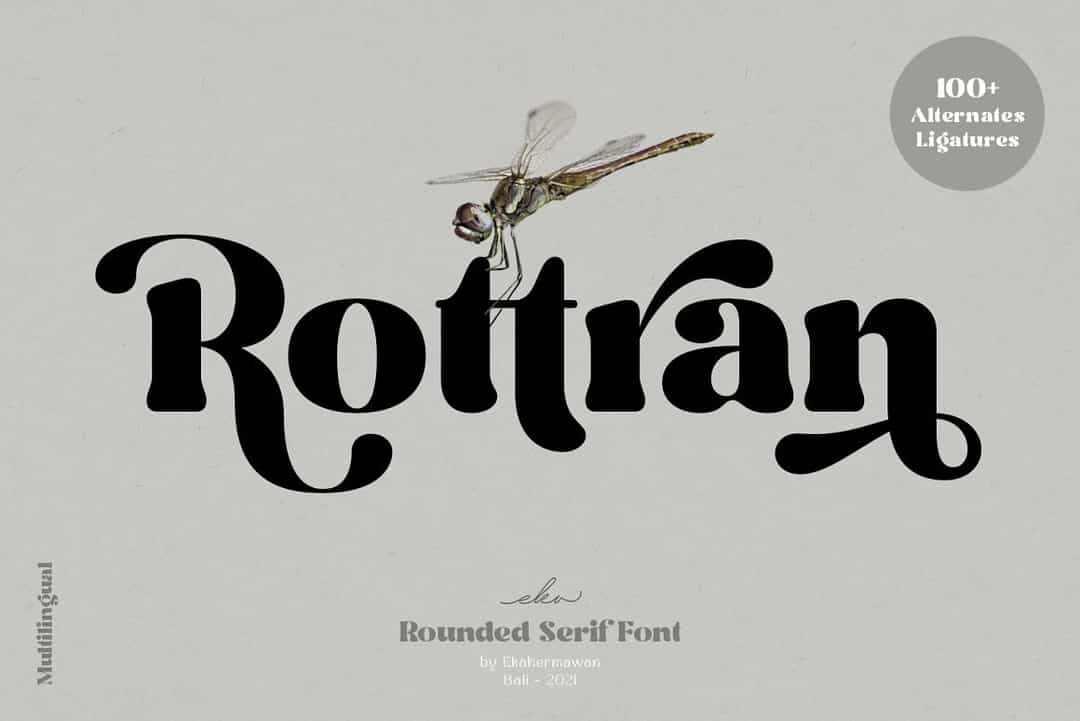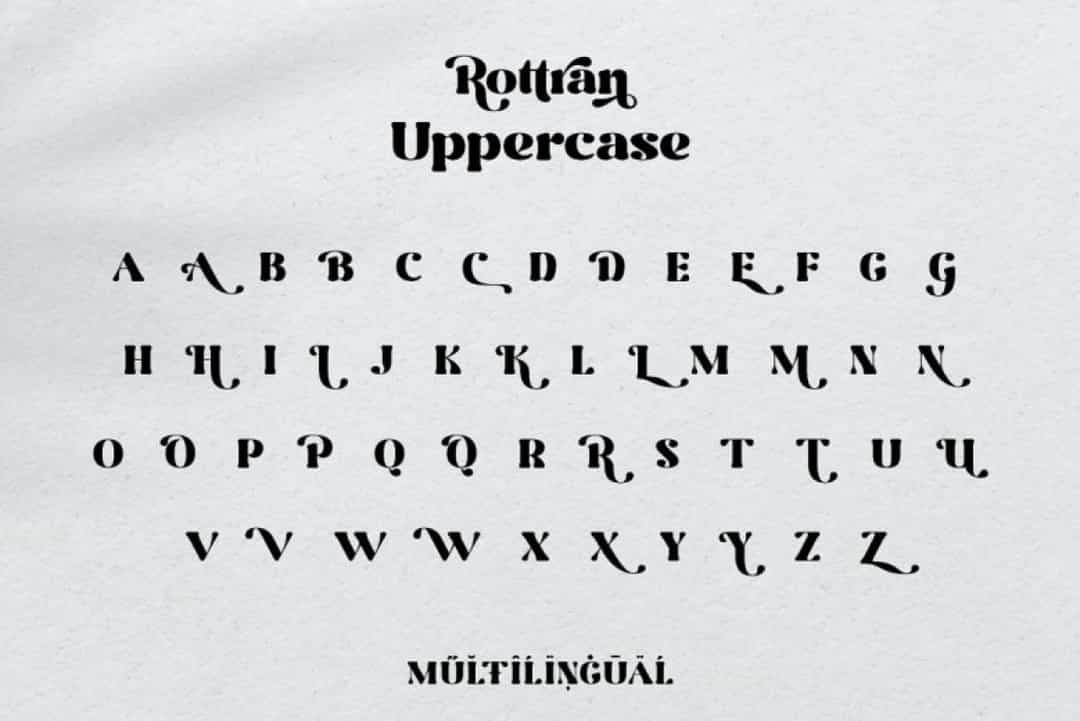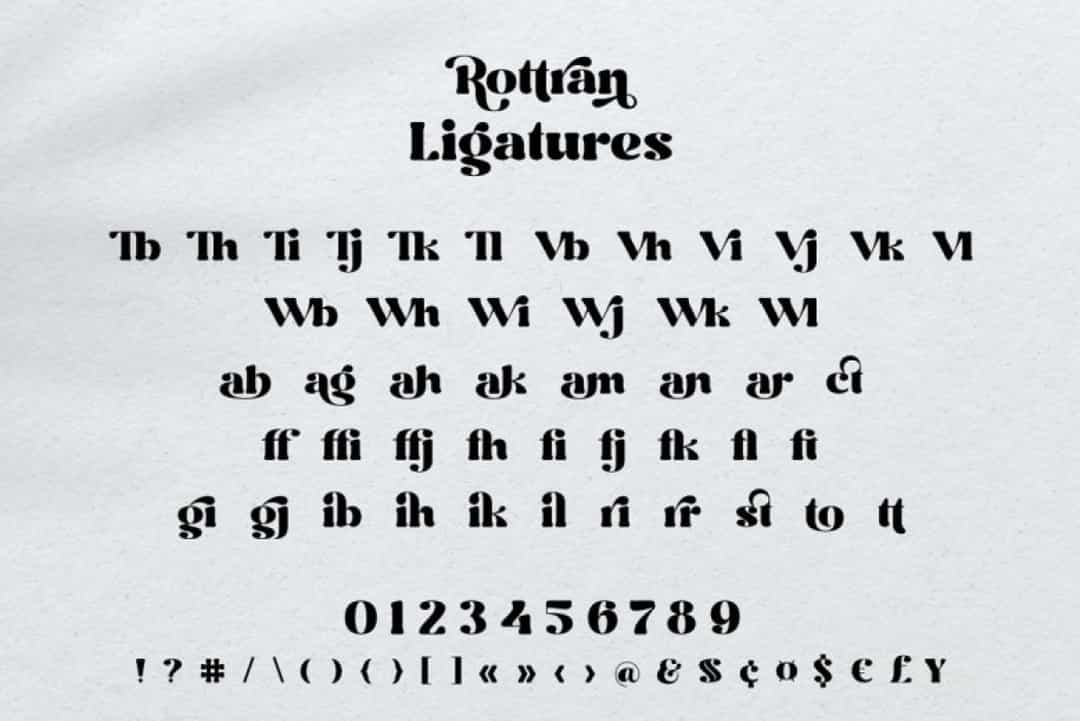
Rottran can be described as an unassuming serif font with over one hundred different characters (PUA encoded) and ligatures characters for typographic design applications. It offers an abundance of typographic design possibilities.